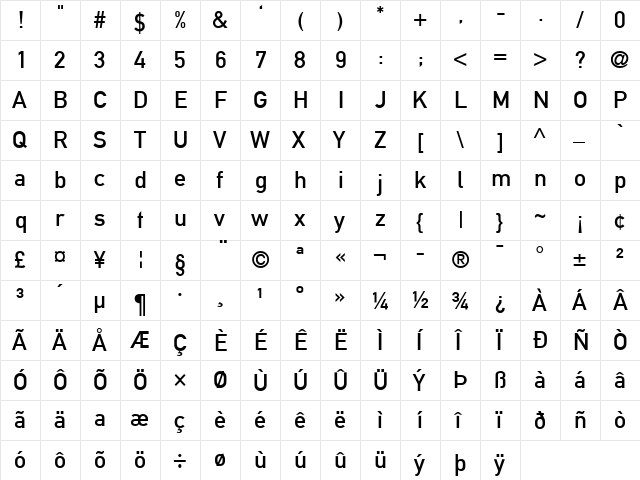
Alte DIN 1451 Mittelschrift Regular
| Foundry | Ludwig Goller |
Design Context for Alte DIN 1451 Mittelschrift Typeface
Alte DIN 1451 Mittelschrift offers clean, dependable letterforms without strong stylistic allegiance, making it a practical choice for designers who need flexibility.
Pro Tip: Use Alte DIN 1451 Mittelschrift in both headline and body roles to test its range before committing to a single application.